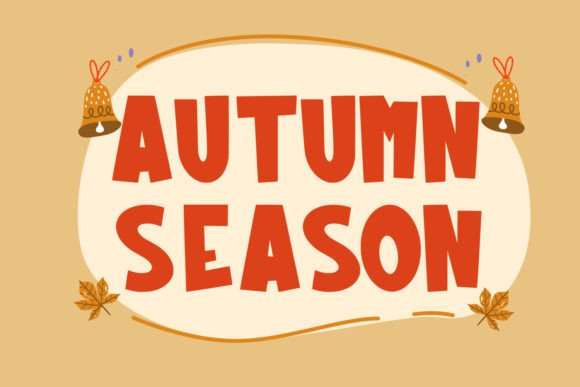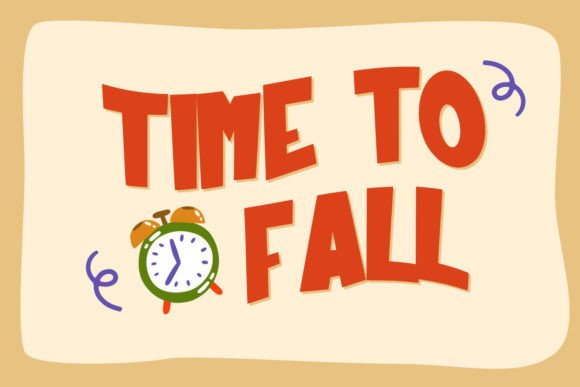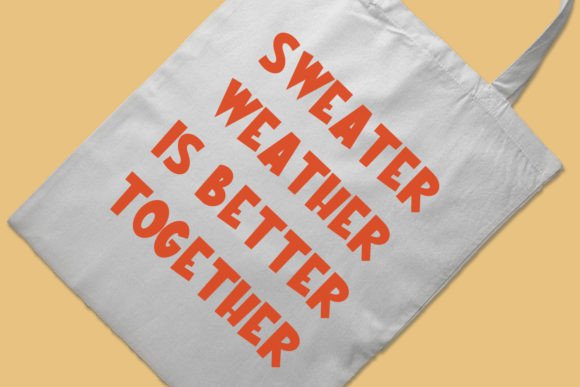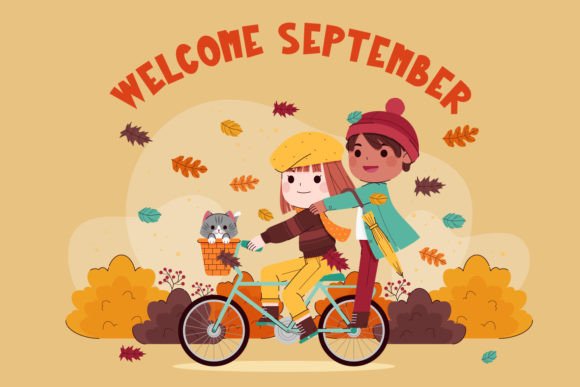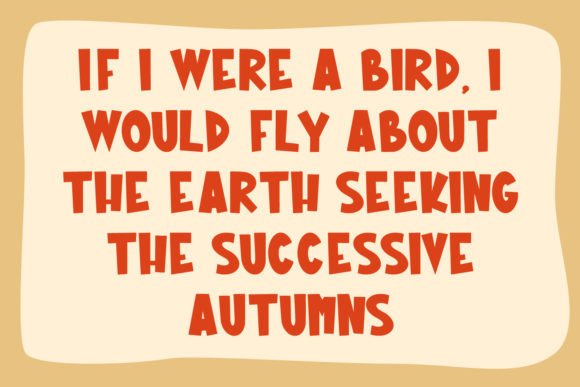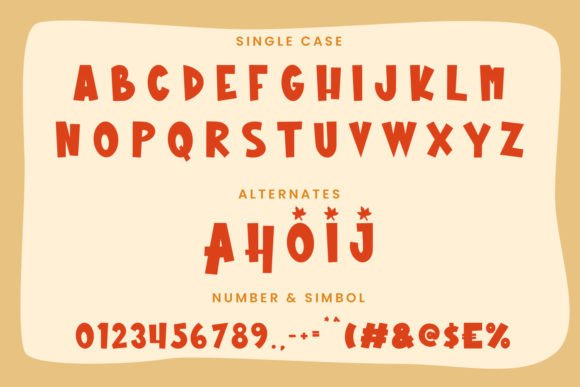
Introducing Autumn School Font: Add a Playful Touch to Your Designs
Are you looking for a font that can add a dash of personality to your designs? Look no further than the Autumn School Font! This playful modern display font is perfect for designers and crafters who want to make a statement with their work. With its bold stroke and fun character, Autumn School Font is ideal for a wide range of design projects.
What Makes Autumn School Font So Special?
Autumn School Font is a unique and eye-catching font that is sure to grab attention. Its bold stroke and playful character make it perfect for designs that need a bit of personality. Whether you’re working on a logo design, social media post, movie or book title, banner, or back to school project, Autumn School Font is the perfect choice.
Autumn School Font is a versatile font that can be used by designers and crafters for a wide range of projects. Here are just a few ideas to get you started:
- Logo Designs: Use Autumn School Font to create a bold and eye-catching logo for your business or brand.
- Social Media: Add a playful touch to your social media posts with Autumn School Font.
- Movie and Book Titles: Use Autumn School Font to create eye-catching titles for your movie or book projects.
- Banners: Create attention-grabbing banners with Autumn School Font.
- Back to School Projects: Add a fun and playful touch to your back to school projects with Autumn School Font.
Why Choose Autumn School Font?
There are many reasons why Autumn School Font is the perfect choice for your design projects. Here are just a few:
- Unique and Eye-Catching: Autumn School Font is a unique and eye-catching font that is sure to grab attention.
- Playful and Fun: Add a playful and fun touch to your designs with Autumn School Font.
- Versatile: Autumn School Font can be used for a wide range of design projects.
- Easy to Read: Despite its bold stroke, Autumn School Font is easy to read and understand.
How to Use Autumn School Font
Autumn School Font is a playful modern display font that is perfect for designers and crafters who want to add a dash of personality to their designs. With its bold stroke and fun character, Autumn School Font is ideal for a wide range of design projects. Whether you’re working on a logo design, social media post, movie or book title, banner, or back to school project, Autumn School Font is the perfect choice. So why wait? Download Autumn School Font today and start creating!
Key Features of Autumn School Font
- Playful modern display font
- Bold stroke and fun character
- Perfect for logo designs, social media, movie and book titles, banners, back to school projects and more!
- Unique and eye-catching